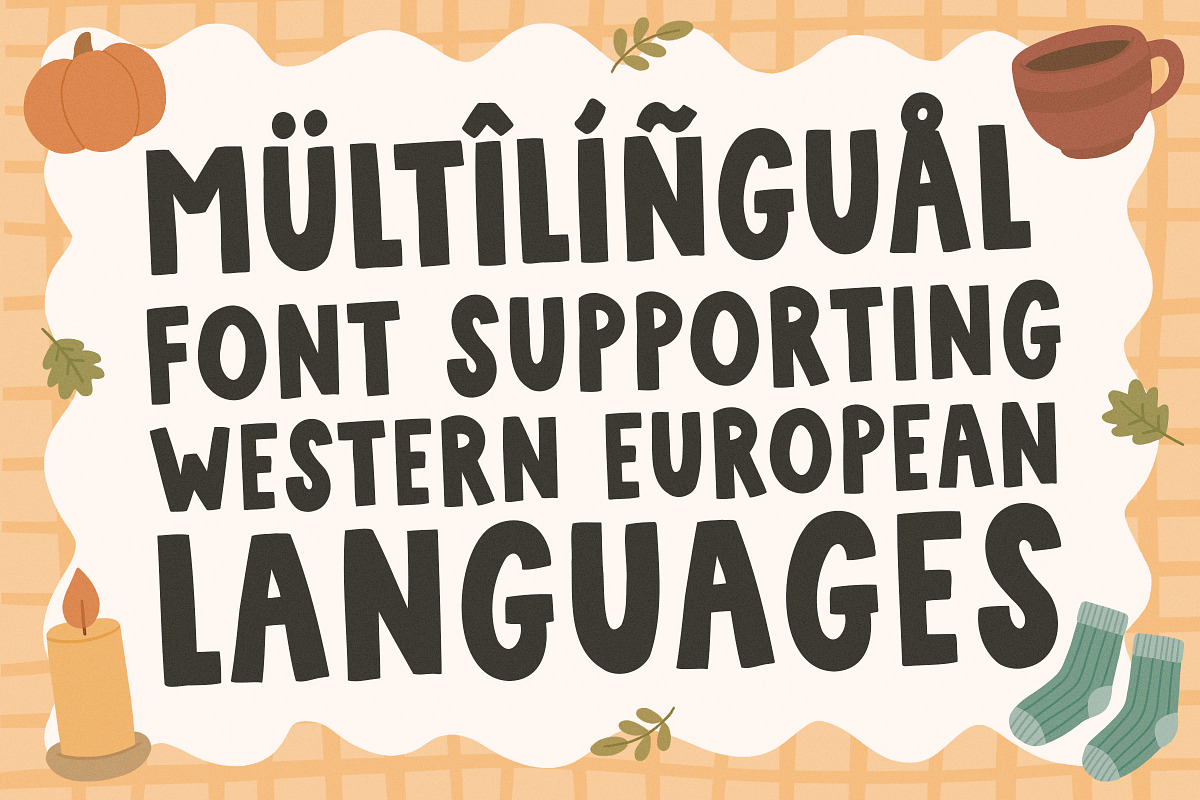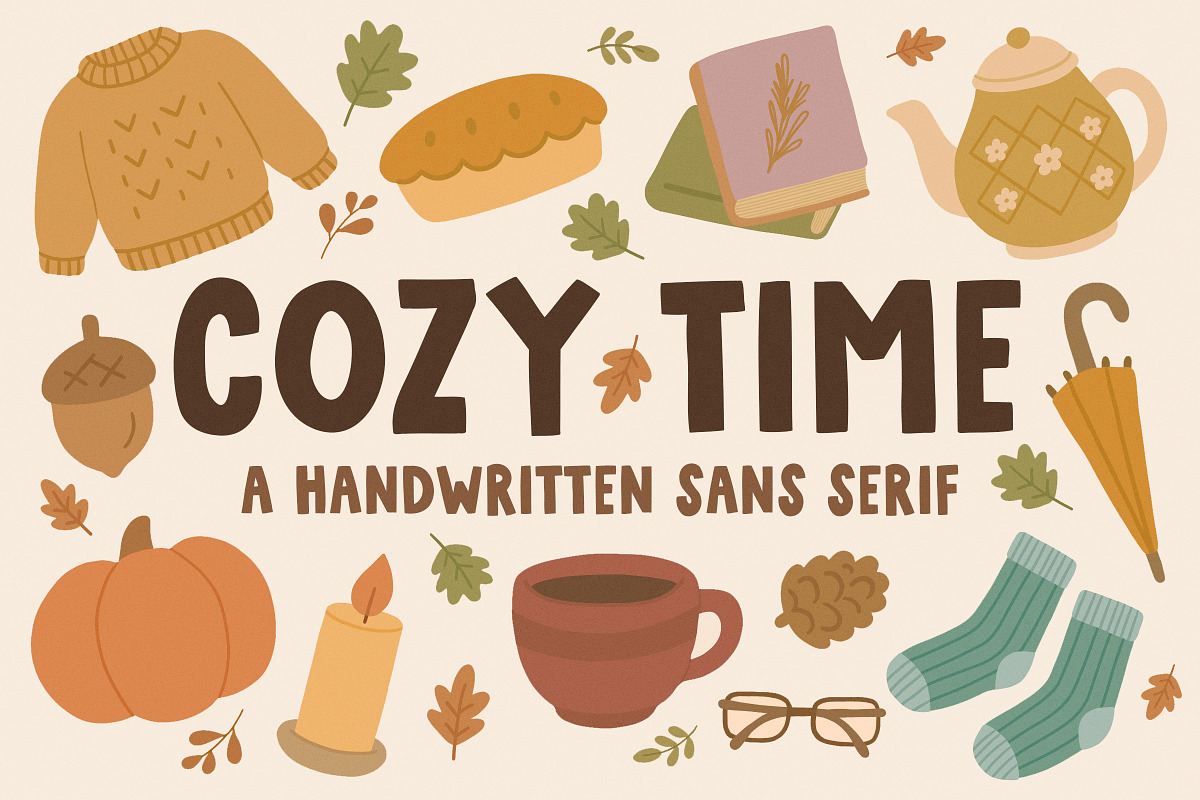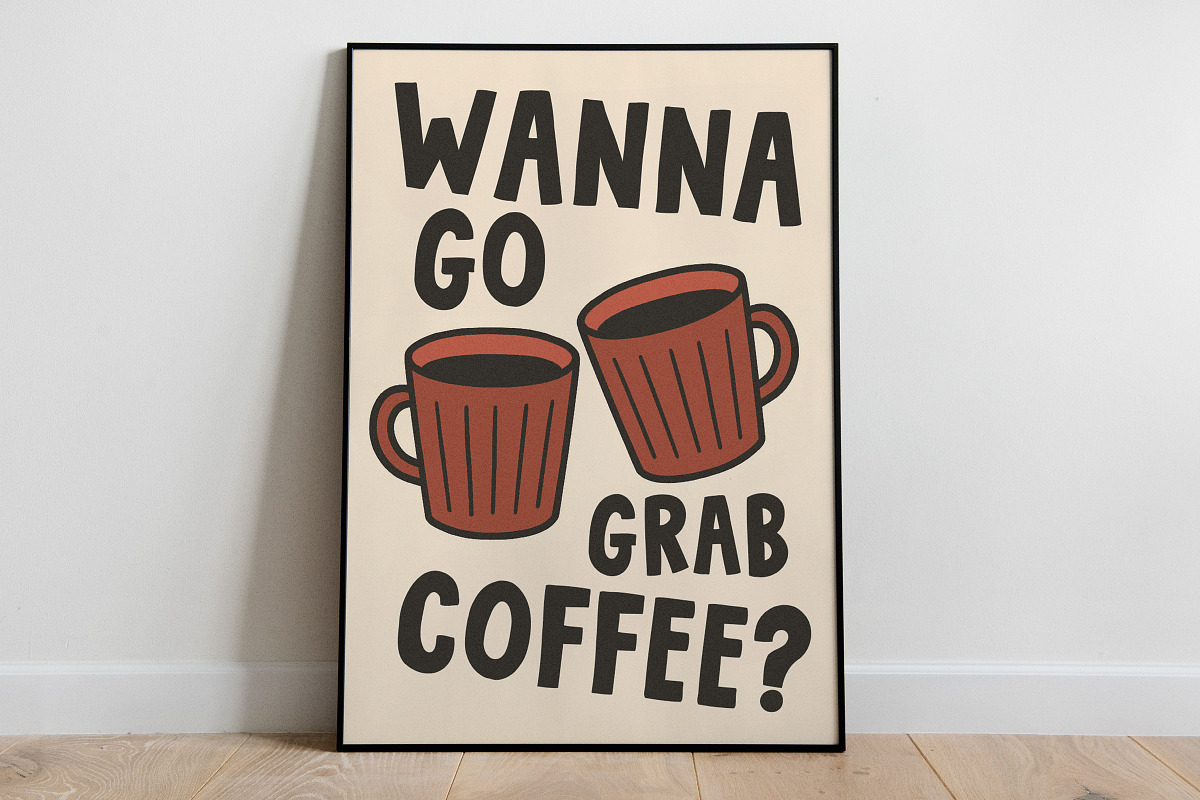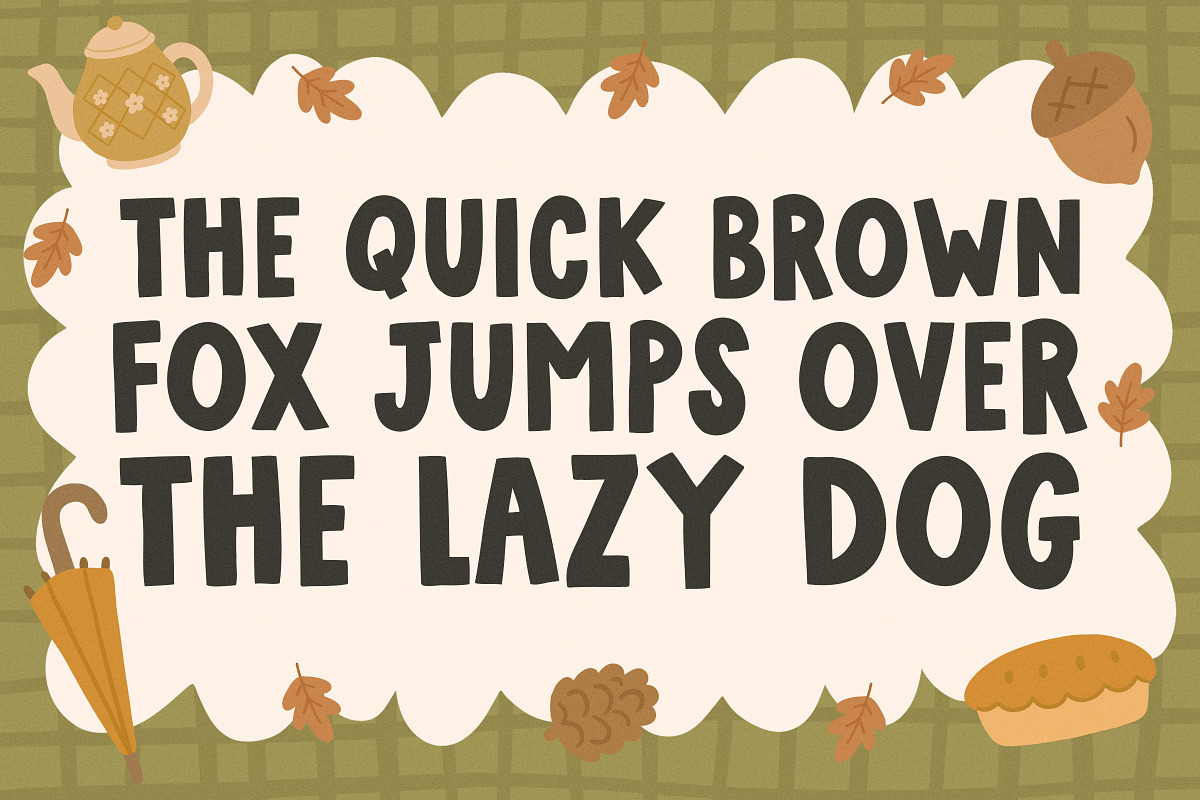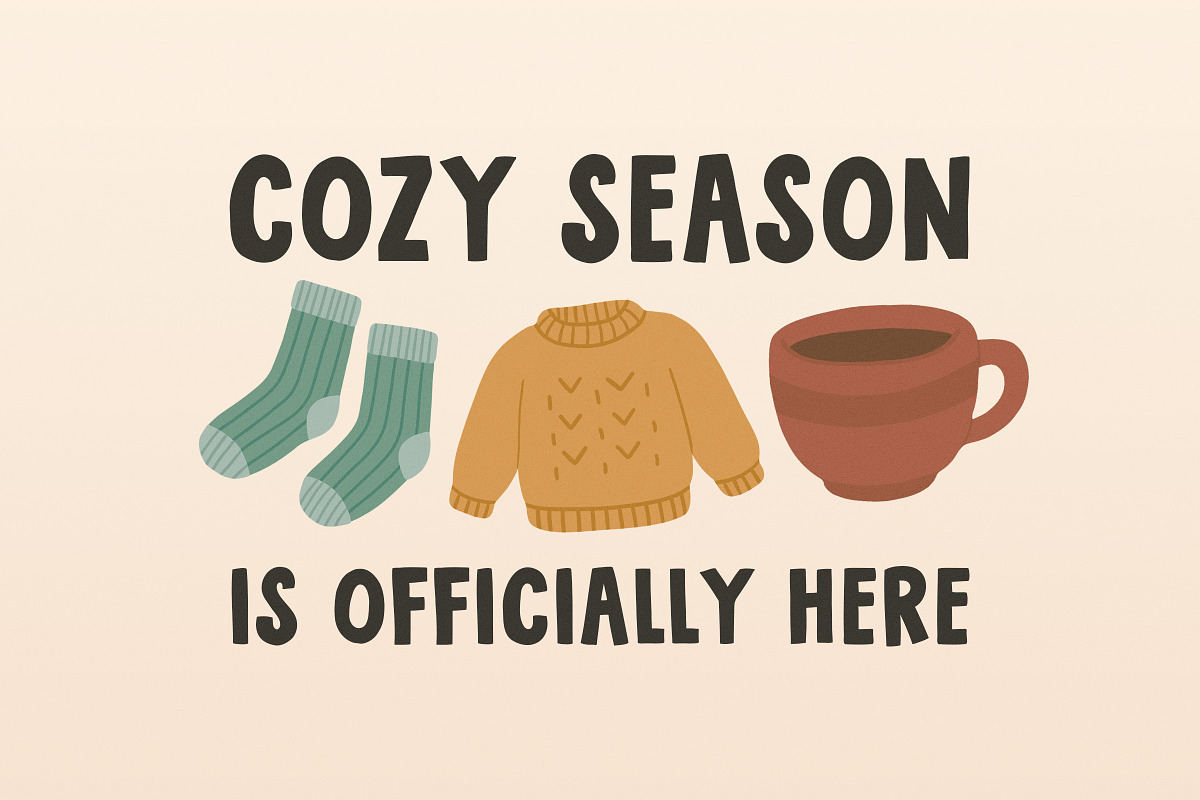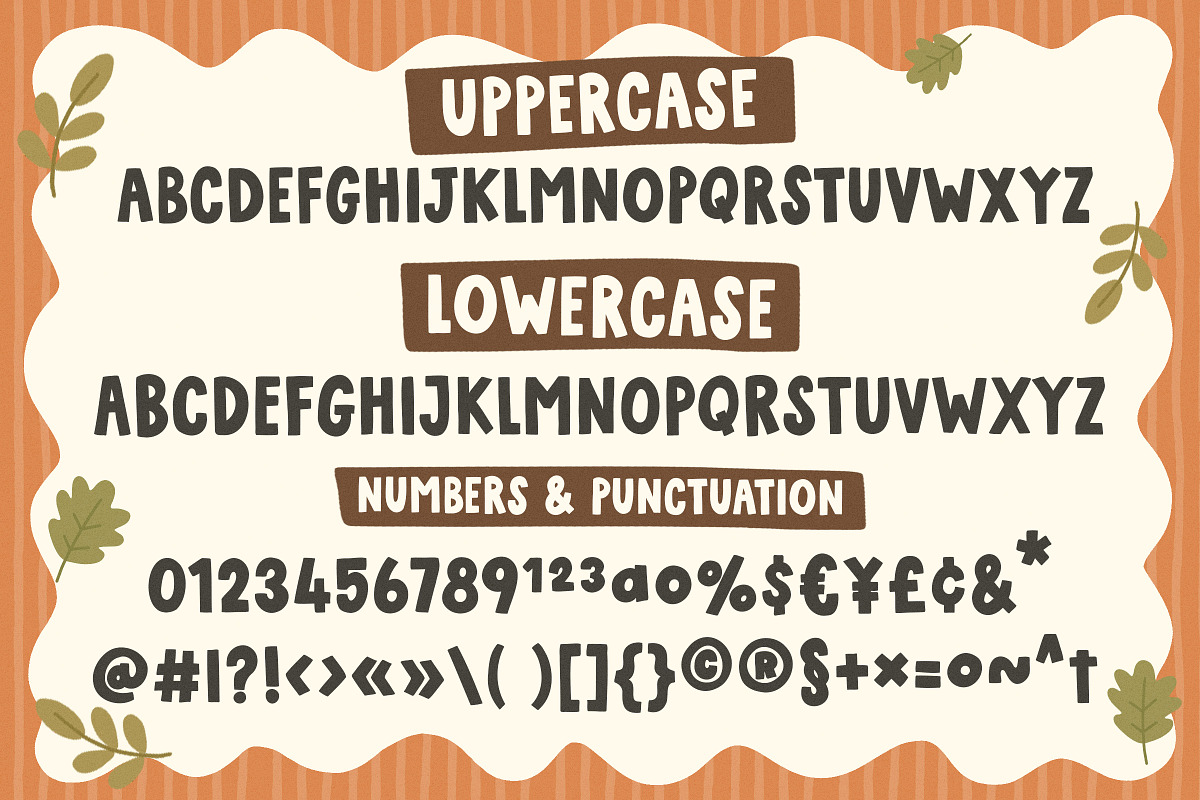
Cozy Time - A Handwritten Sans Serif
Cozy Time is a imperfect handwritten sans serif typeface perfect for any fun quirky design work! This font can be used for anything such as t-shirt designs, phone cases, greeting cards, invitations, mugs and so much more! Get creative!